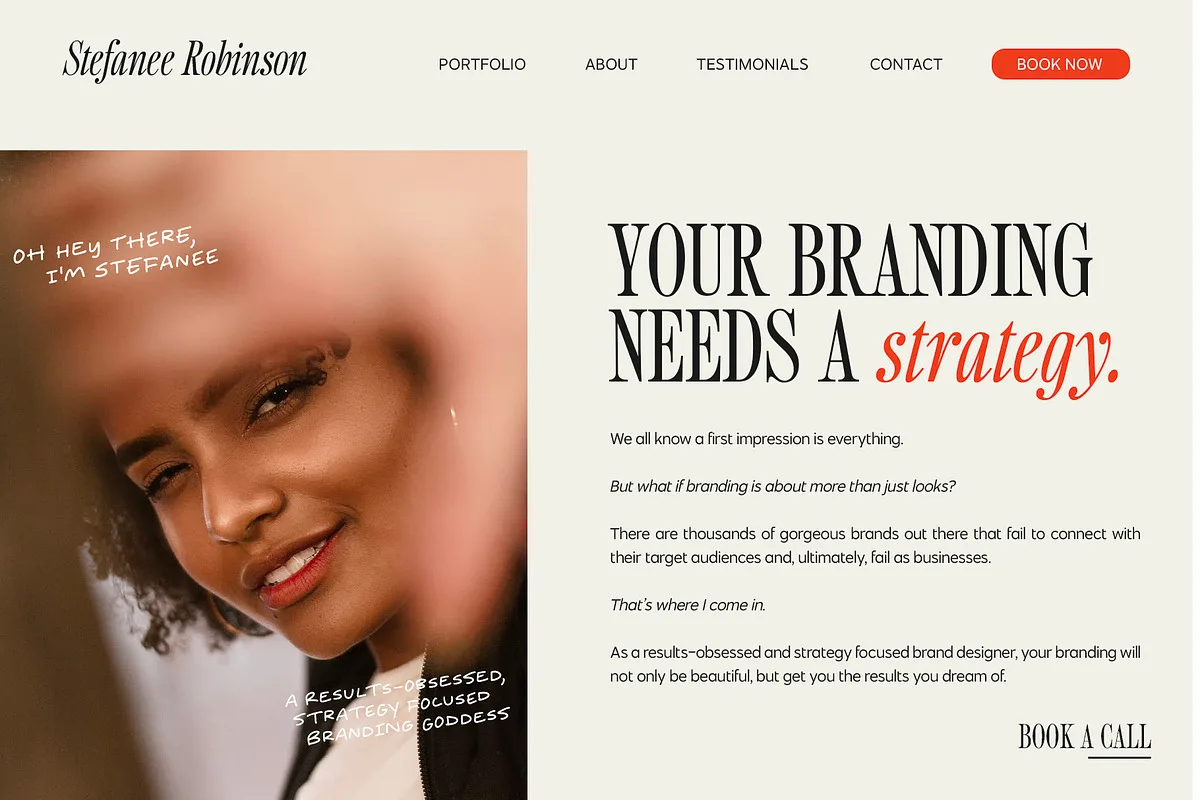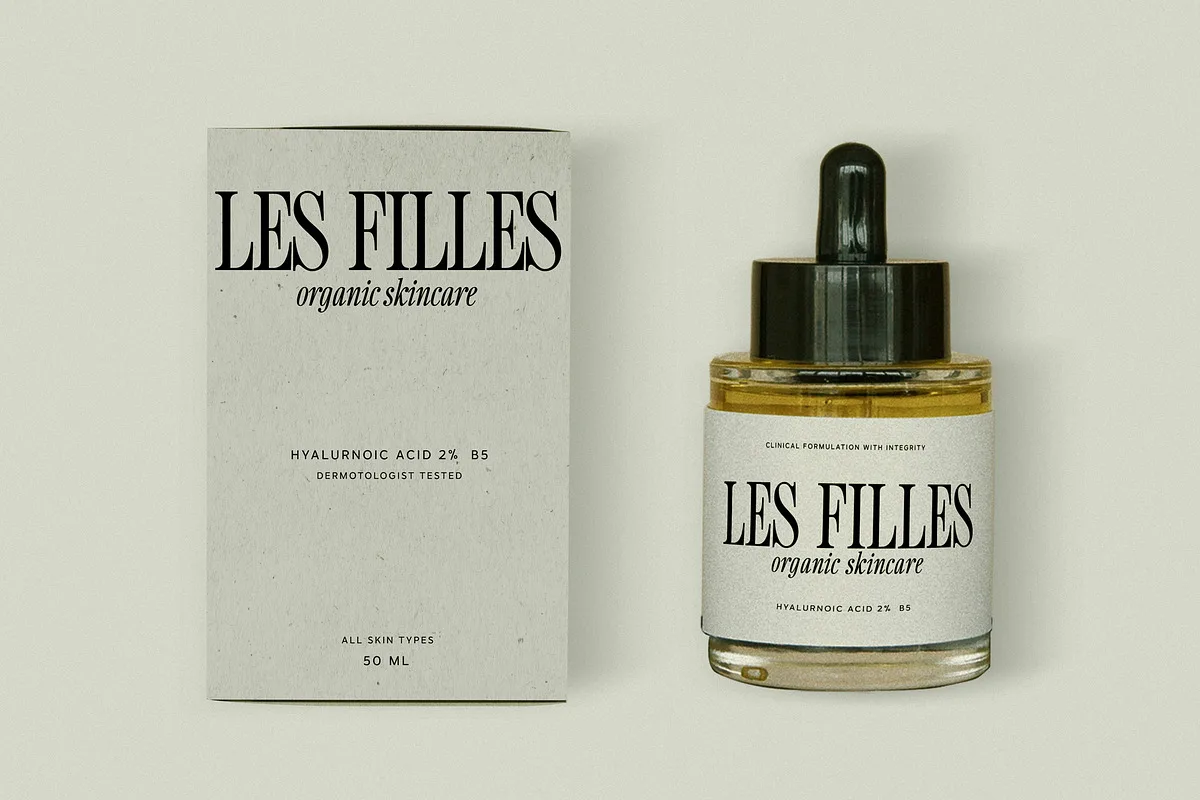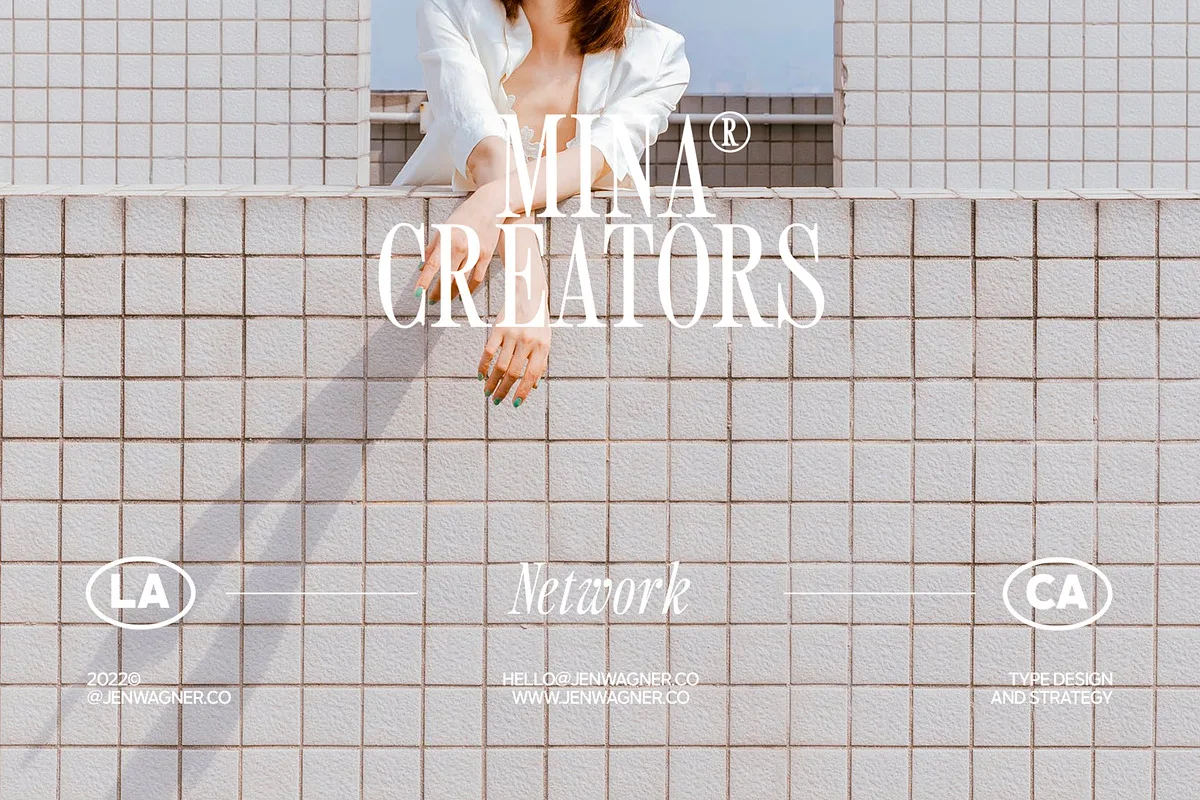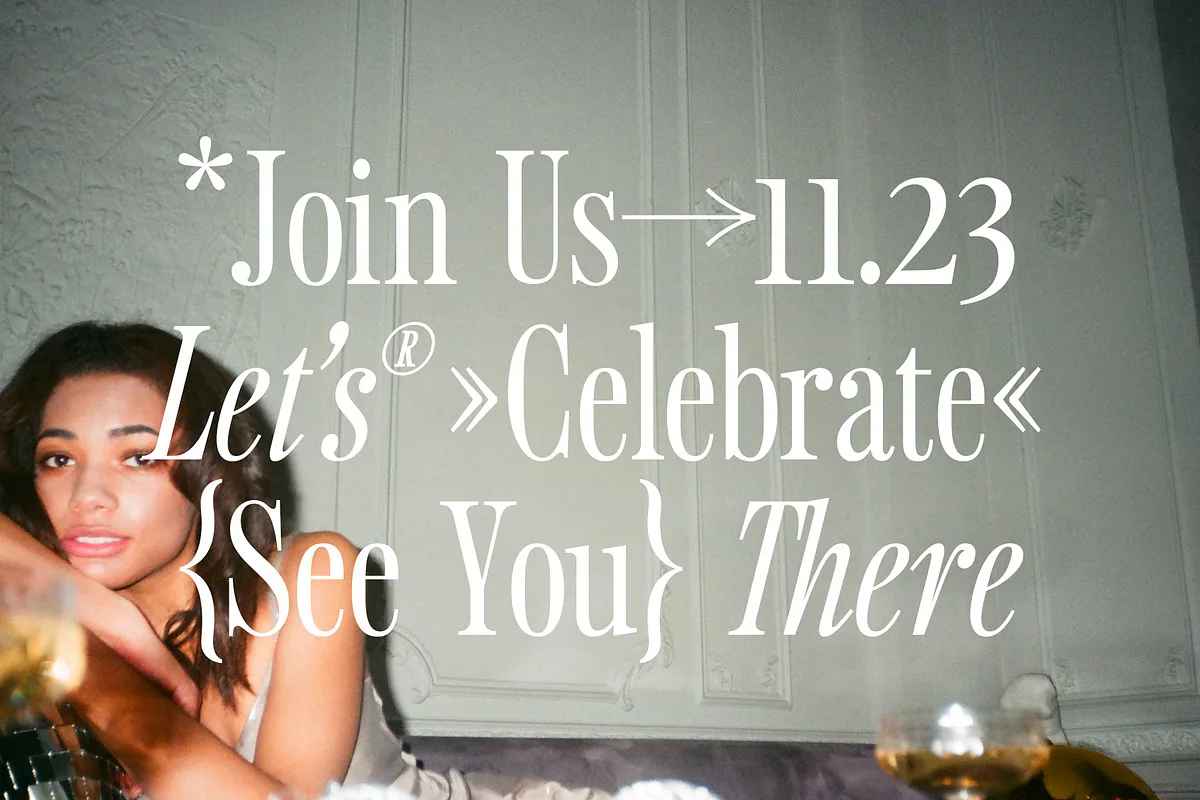
Introducing Sailing Club – a brand new nostalgic serif revival that will make you want to steal your all mom’s vintage college sweatshirts. It is a beautifully nostalgic upper and lowercase typeface that works best as a focal display text (think logos, headers, pretty quotes, calls to action, etc.).
- Regular
- Italic
- Numbers & punctuation
- Foreign language support